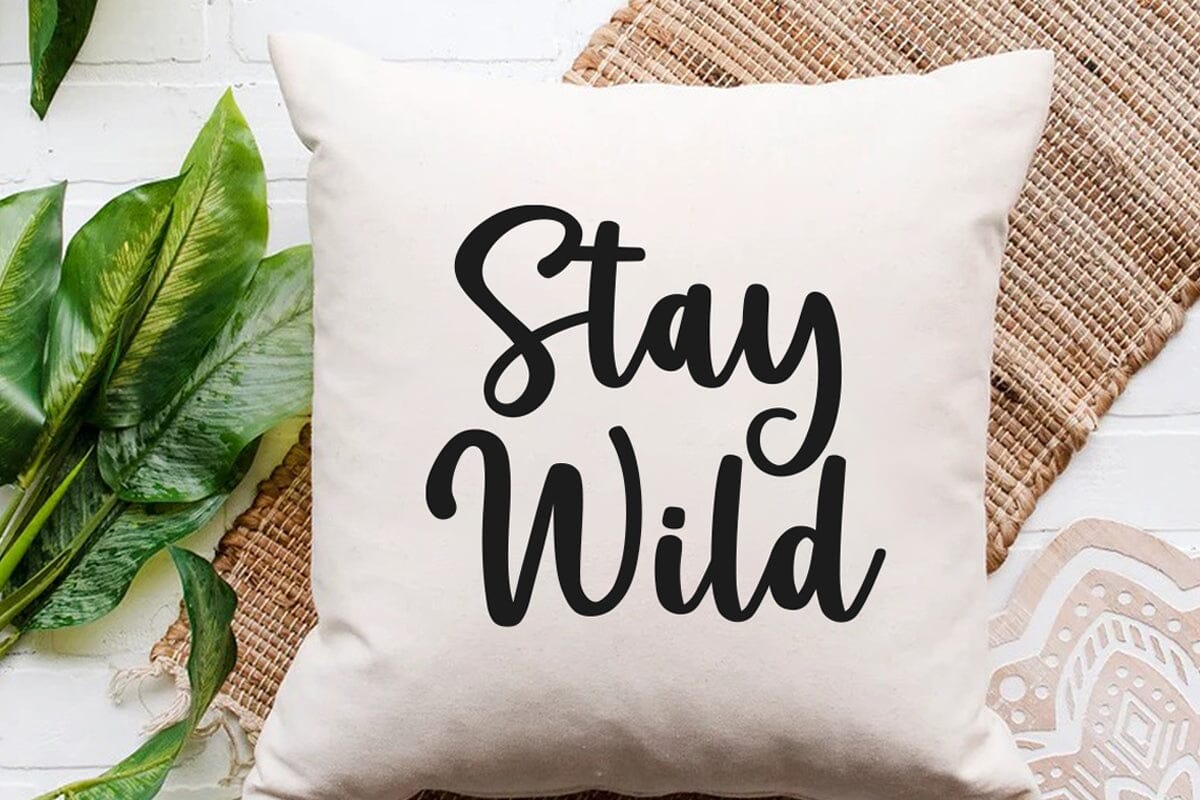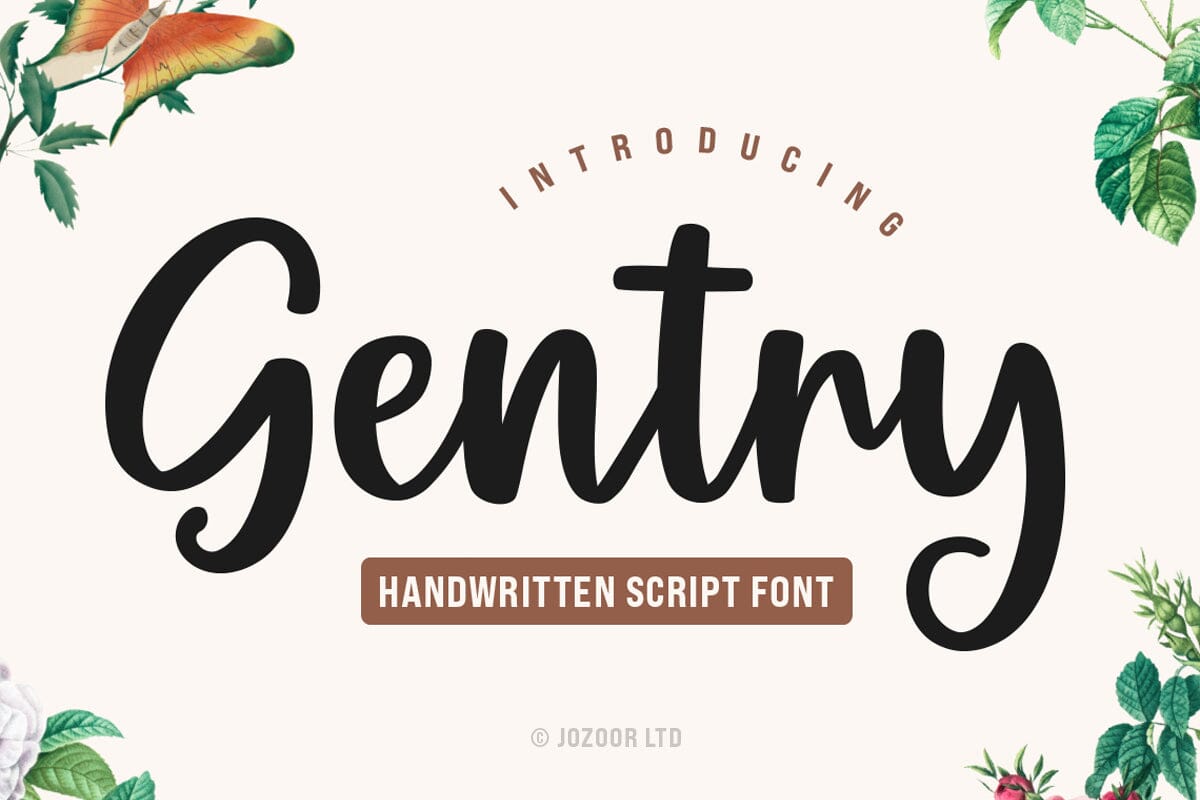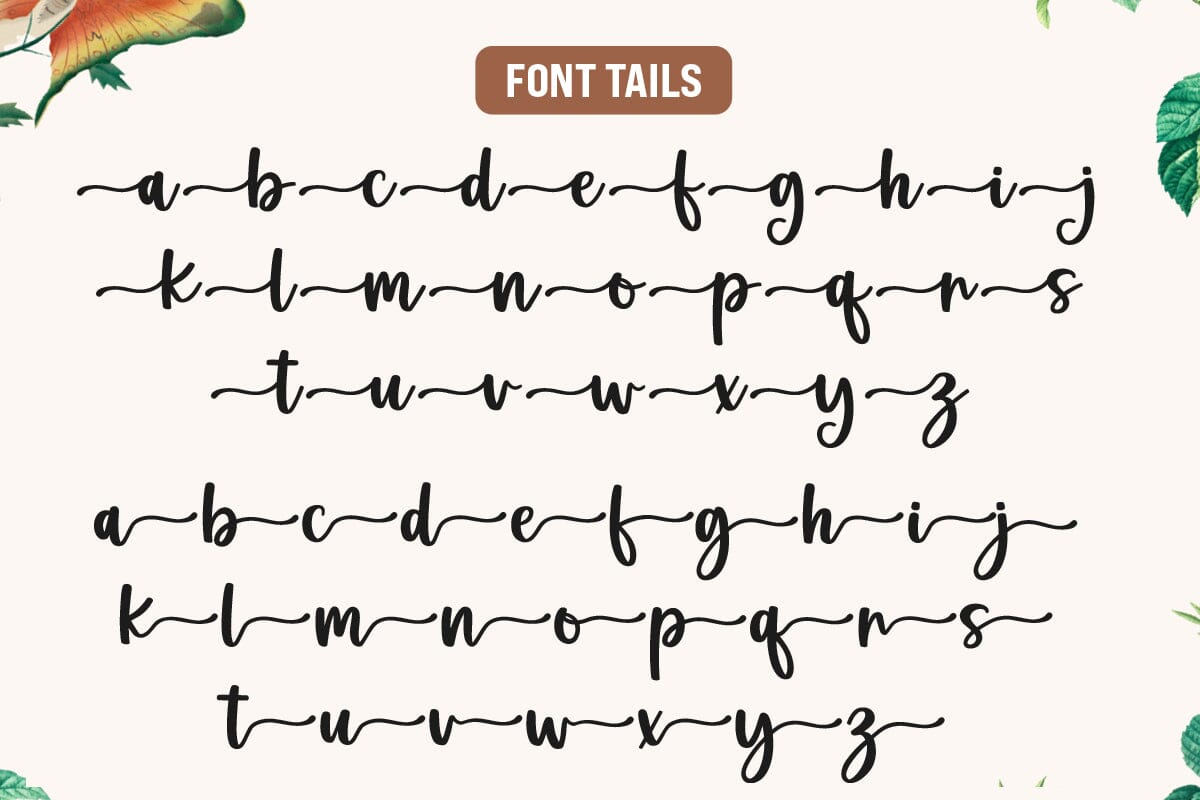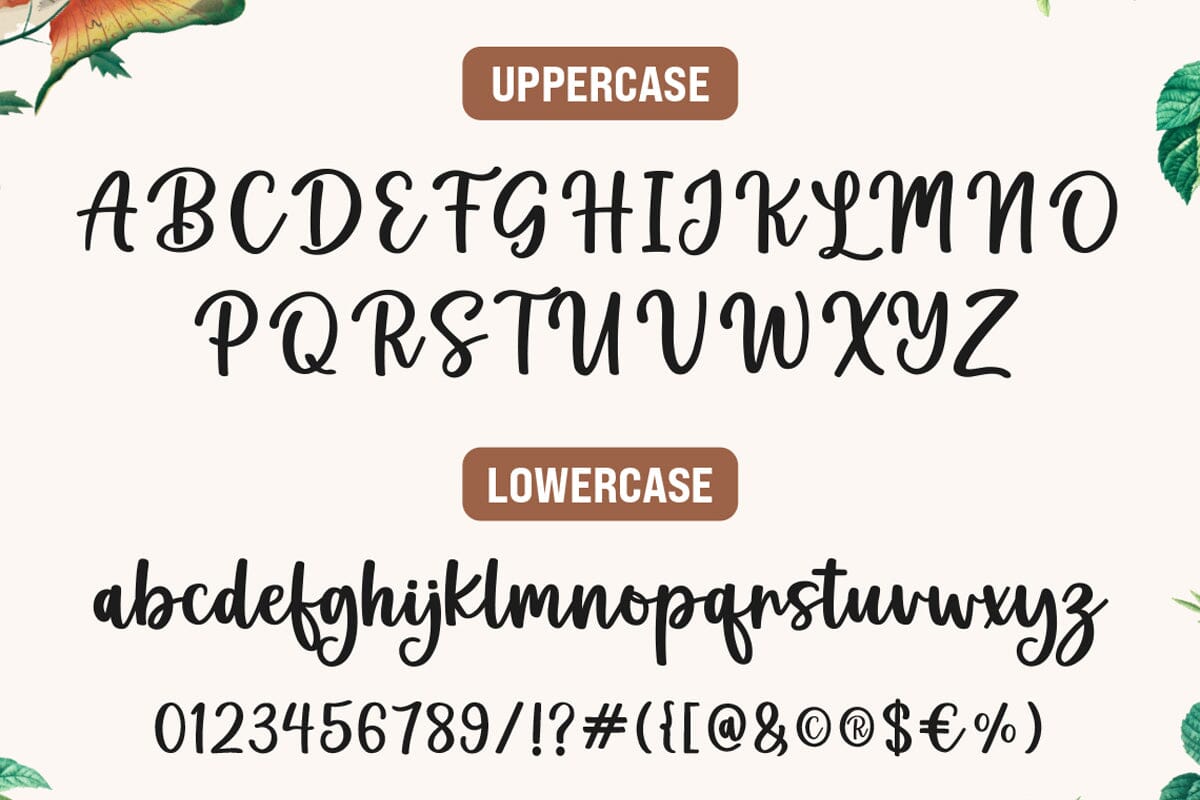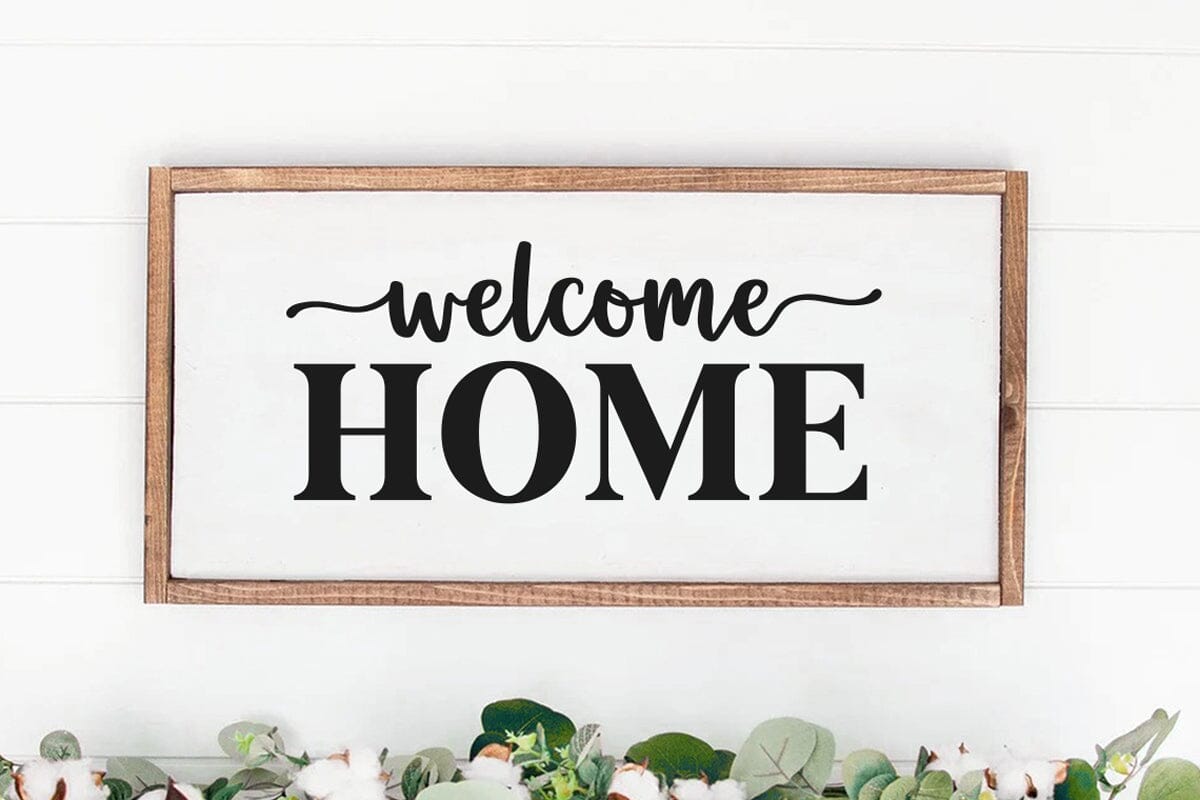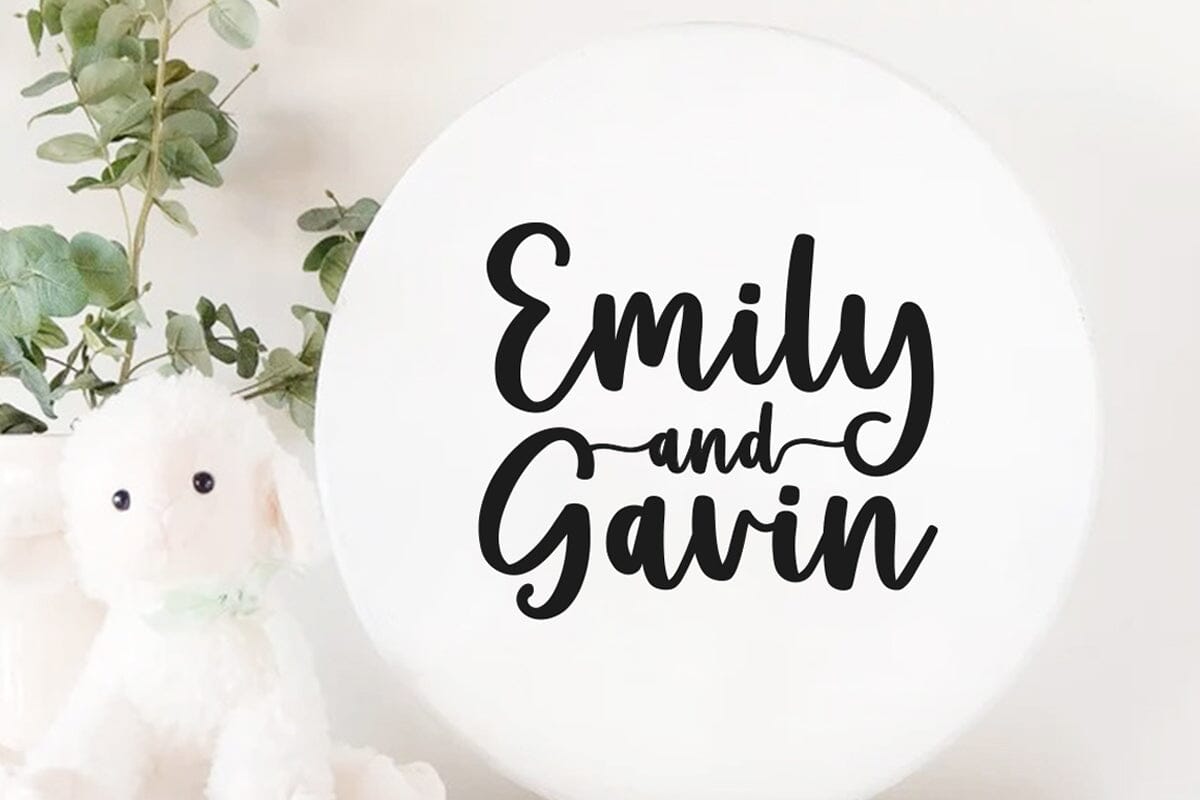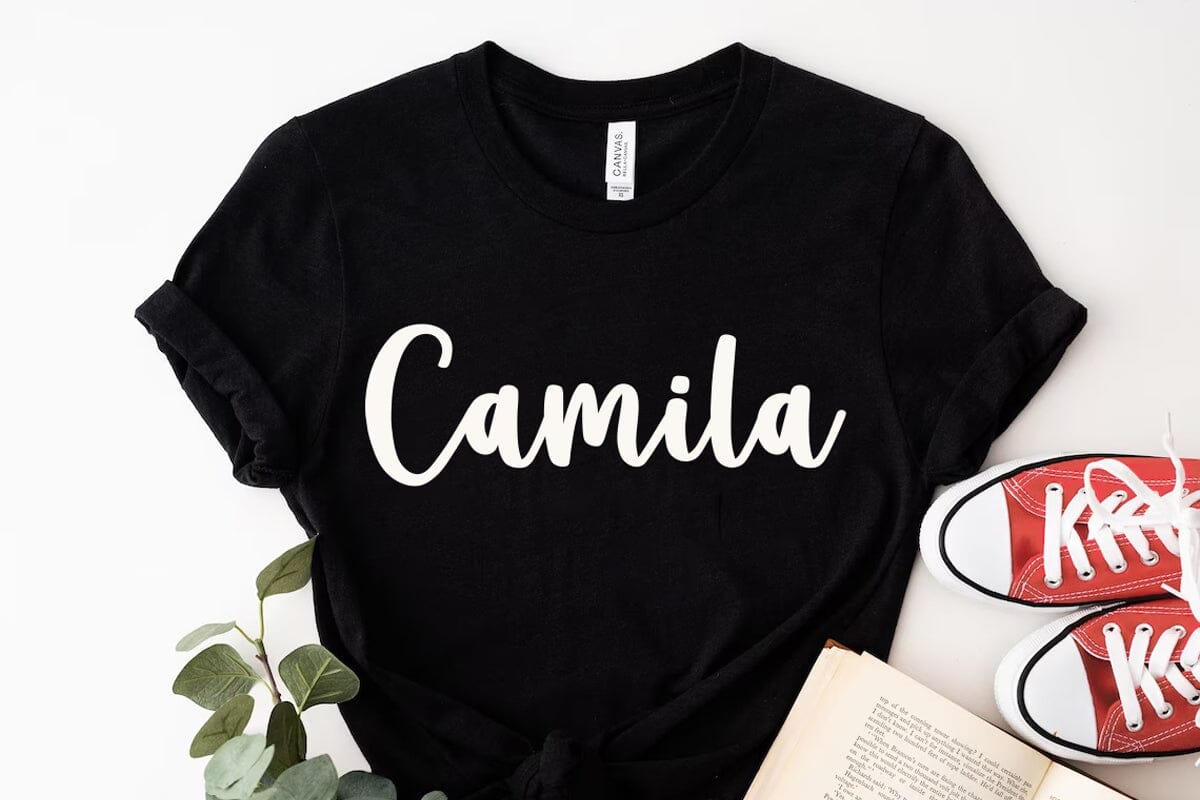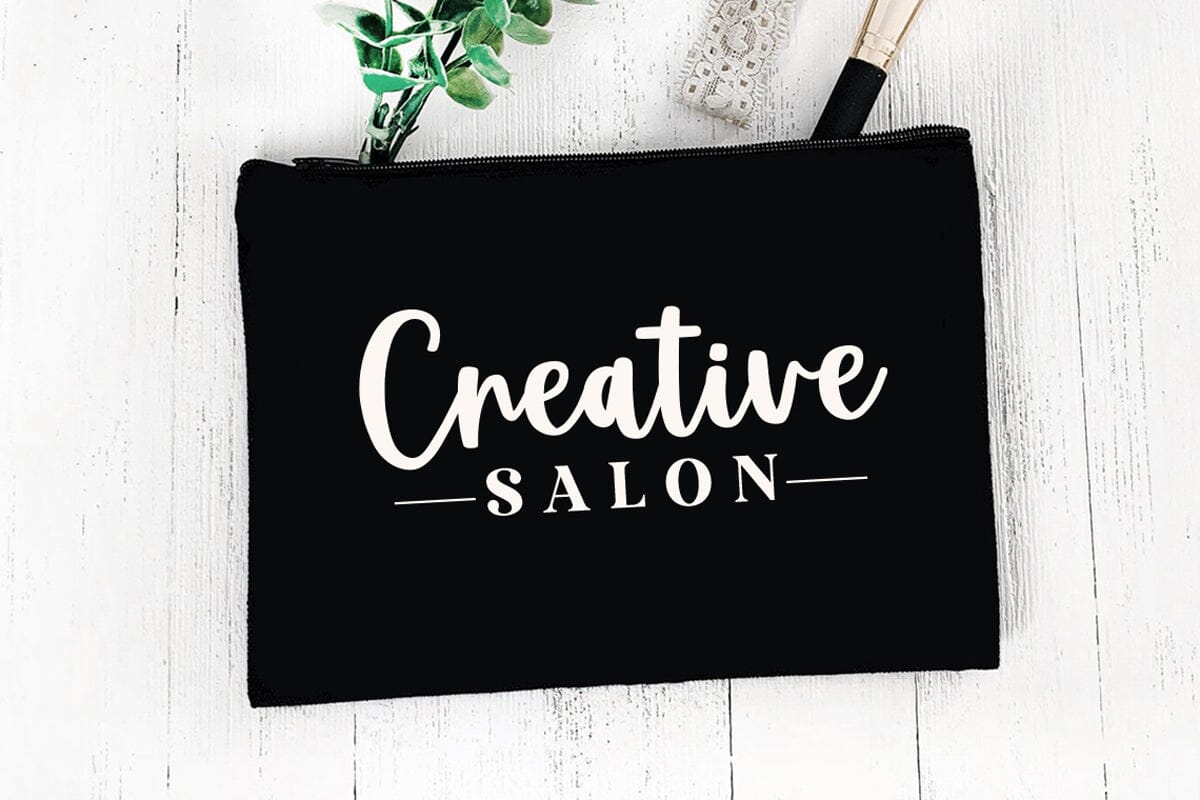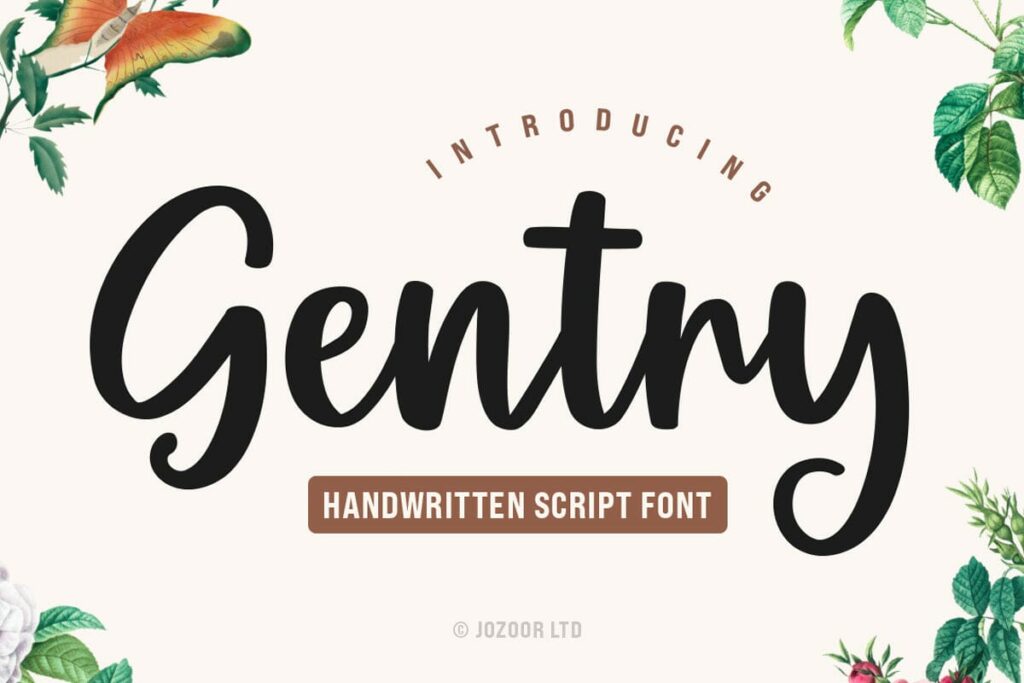
Gentry – Modern Script Font
About Gentry – Modern Script Font
Gentry is a modern, stylish, and flowing handwritten script font with tails. It has beautiful and well-balanced characters and as a result, it matches a wide pool of designs. It is the best choice for creating eye-catching logos, branding, and quotes. Add it to your most creative ideas and notice how it makes them come alive! You will get: (02) OTF Font Files. (02) TTF Font Files. (02) SVG Font Files. User’s Guide PDF file. Hope you enjoy, and happy designing 🙂 ♥ JOZOOR